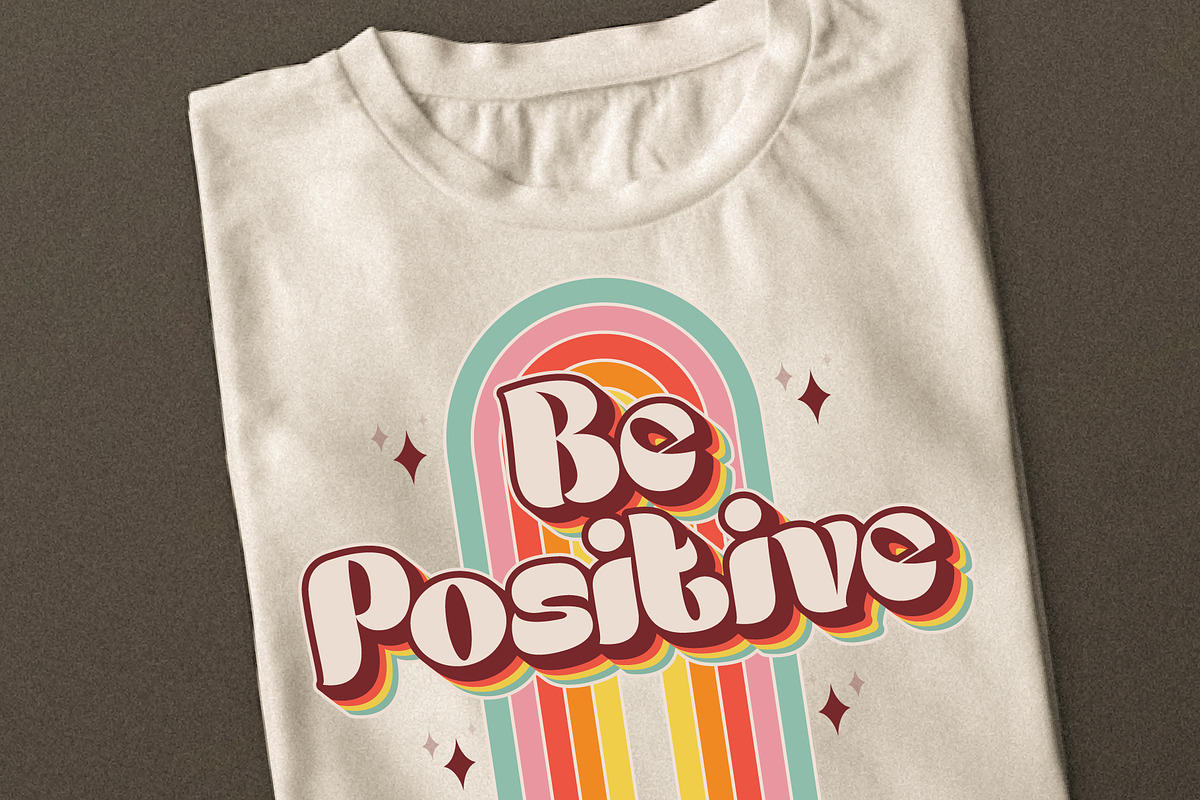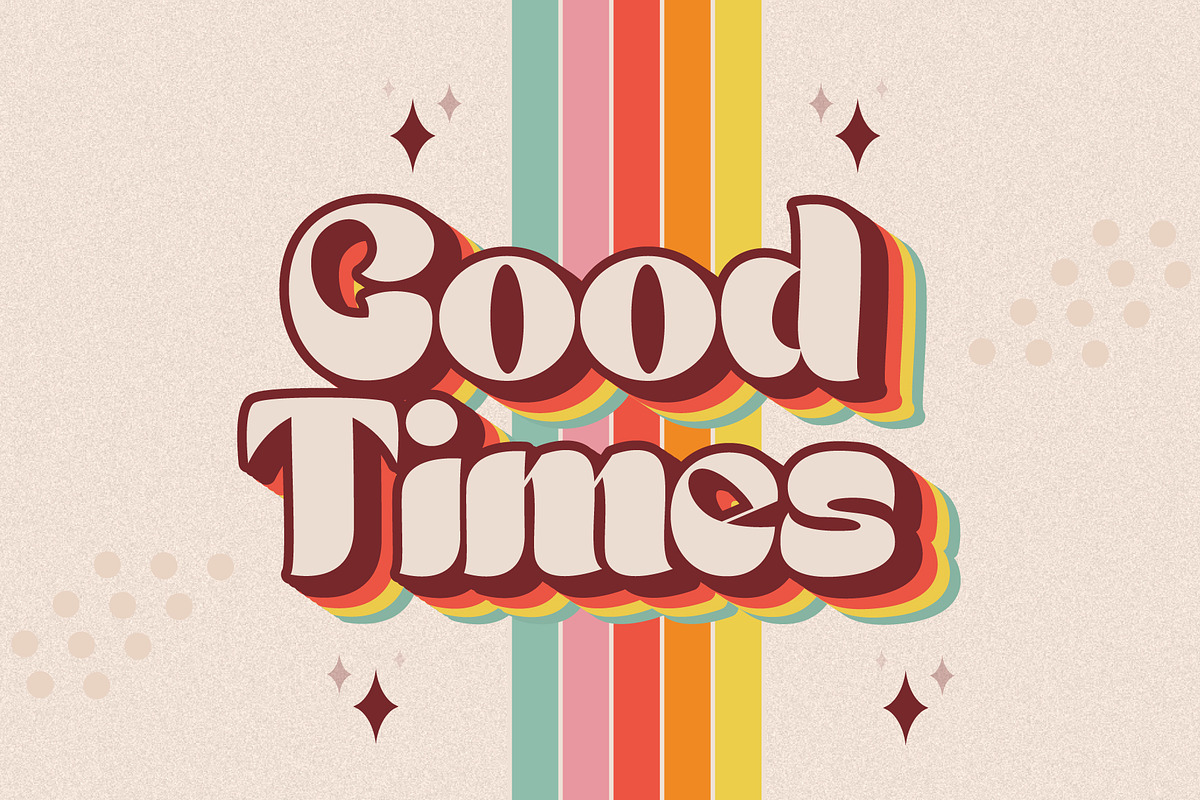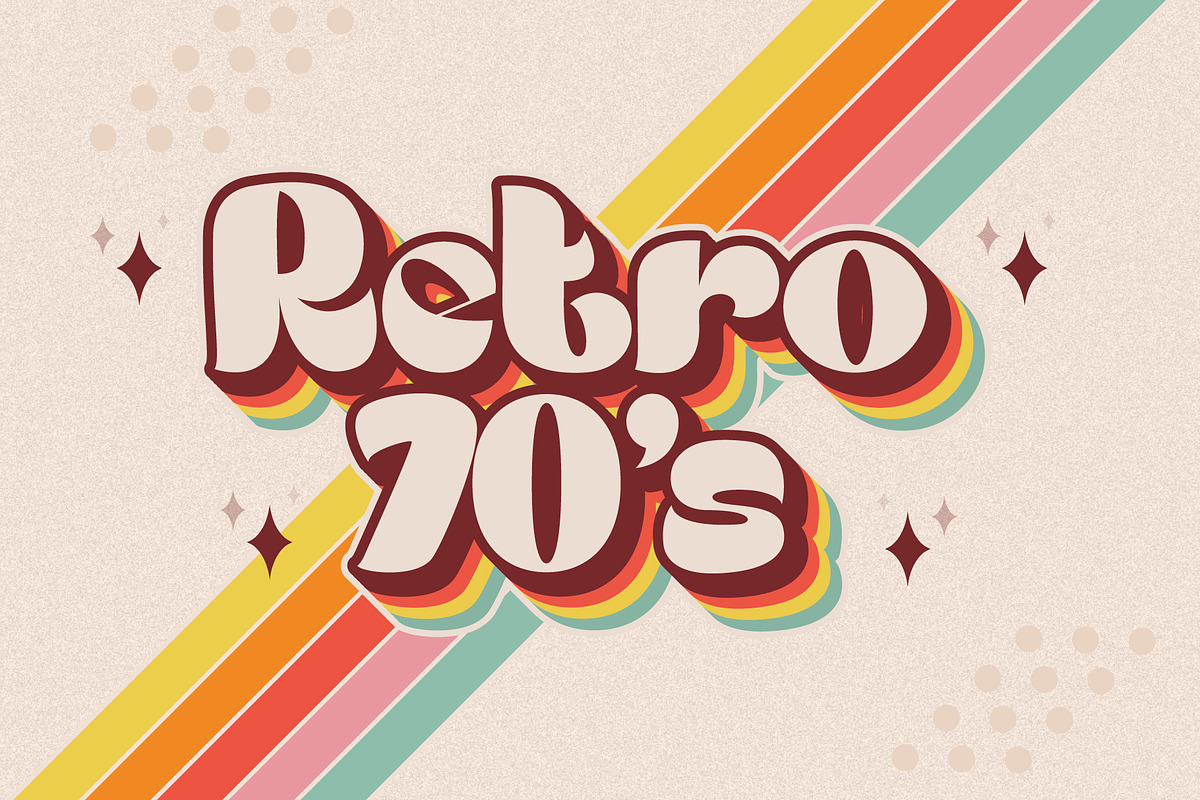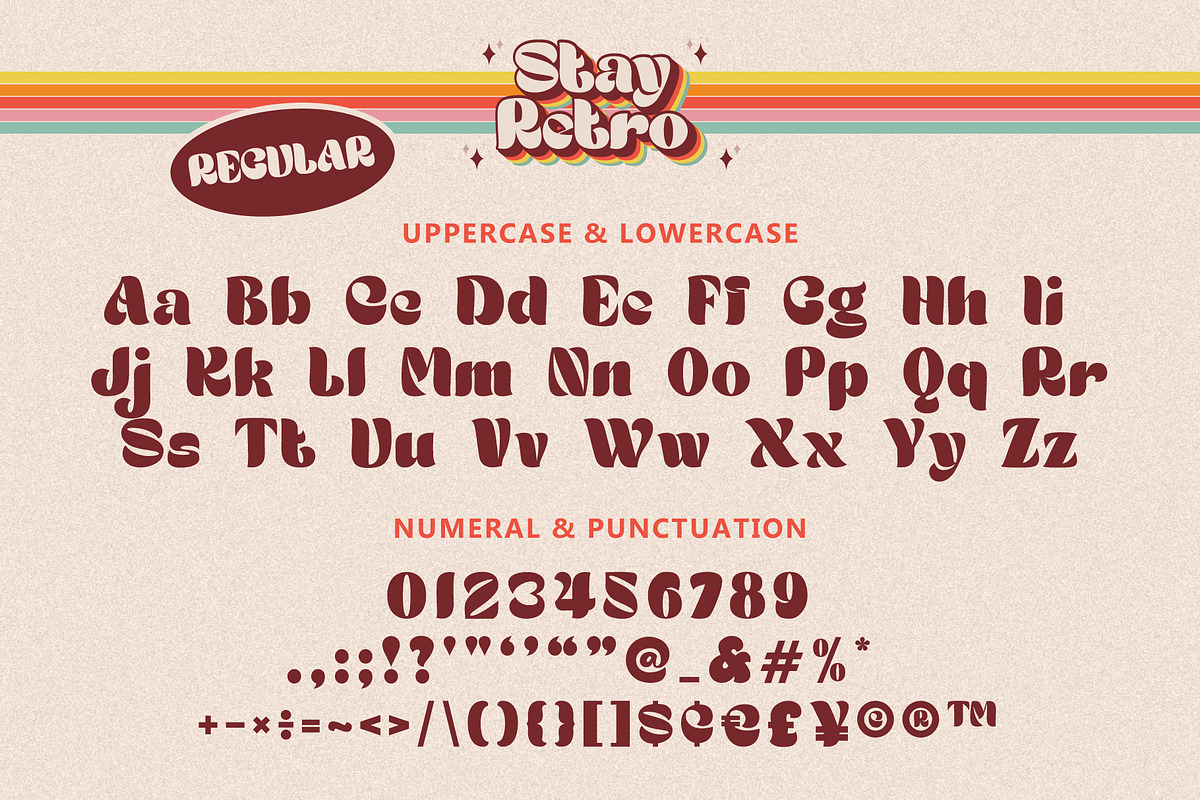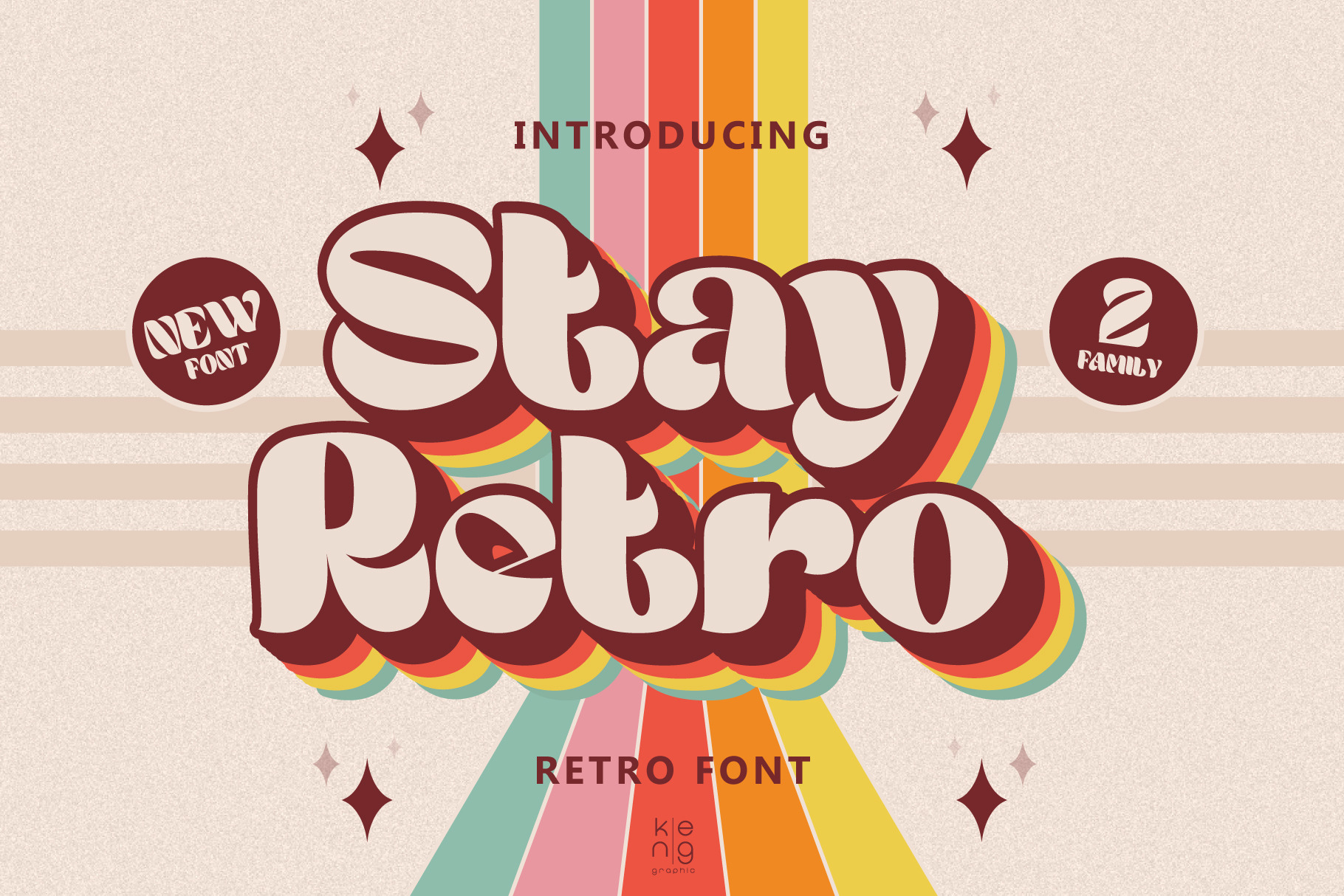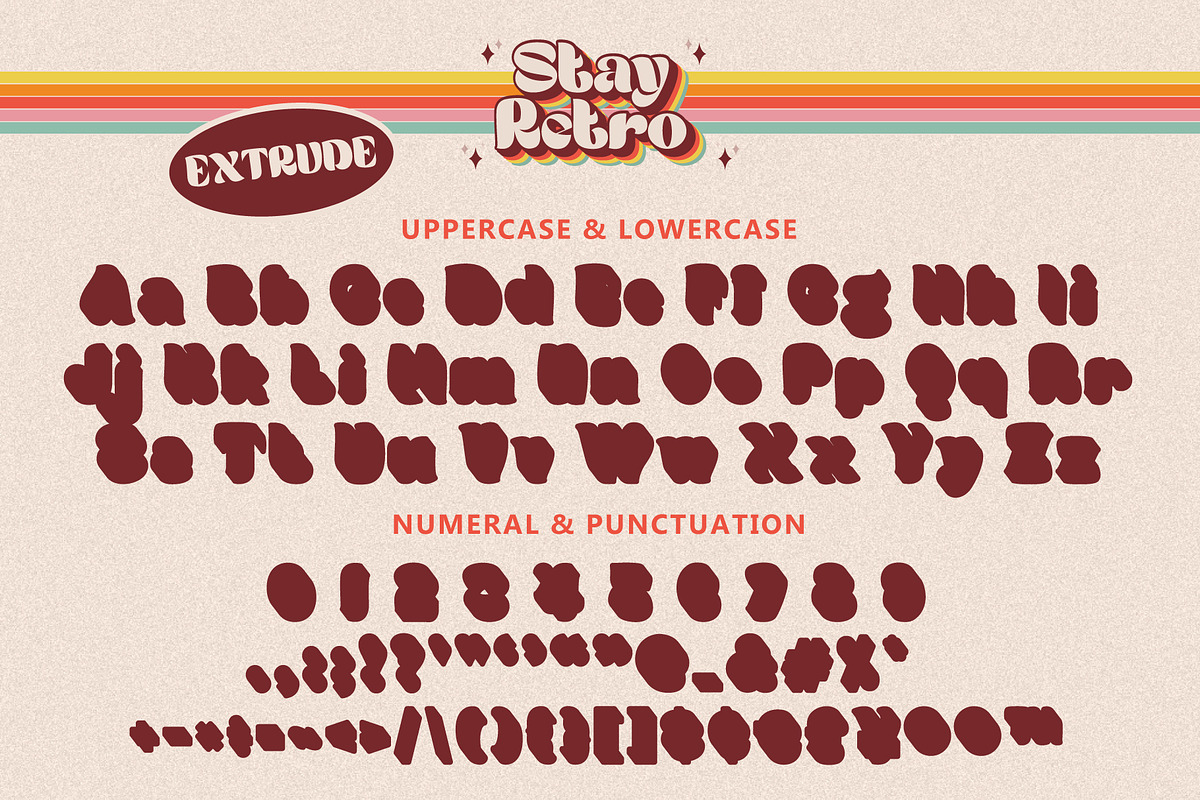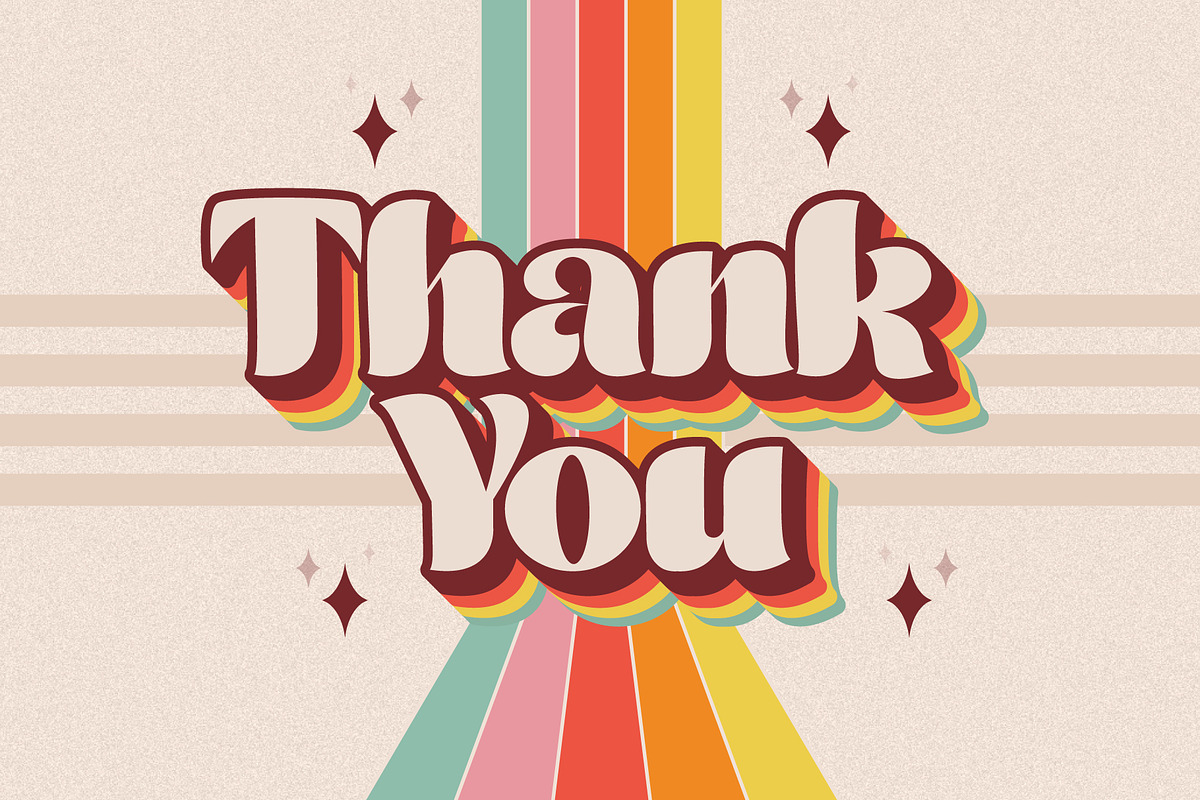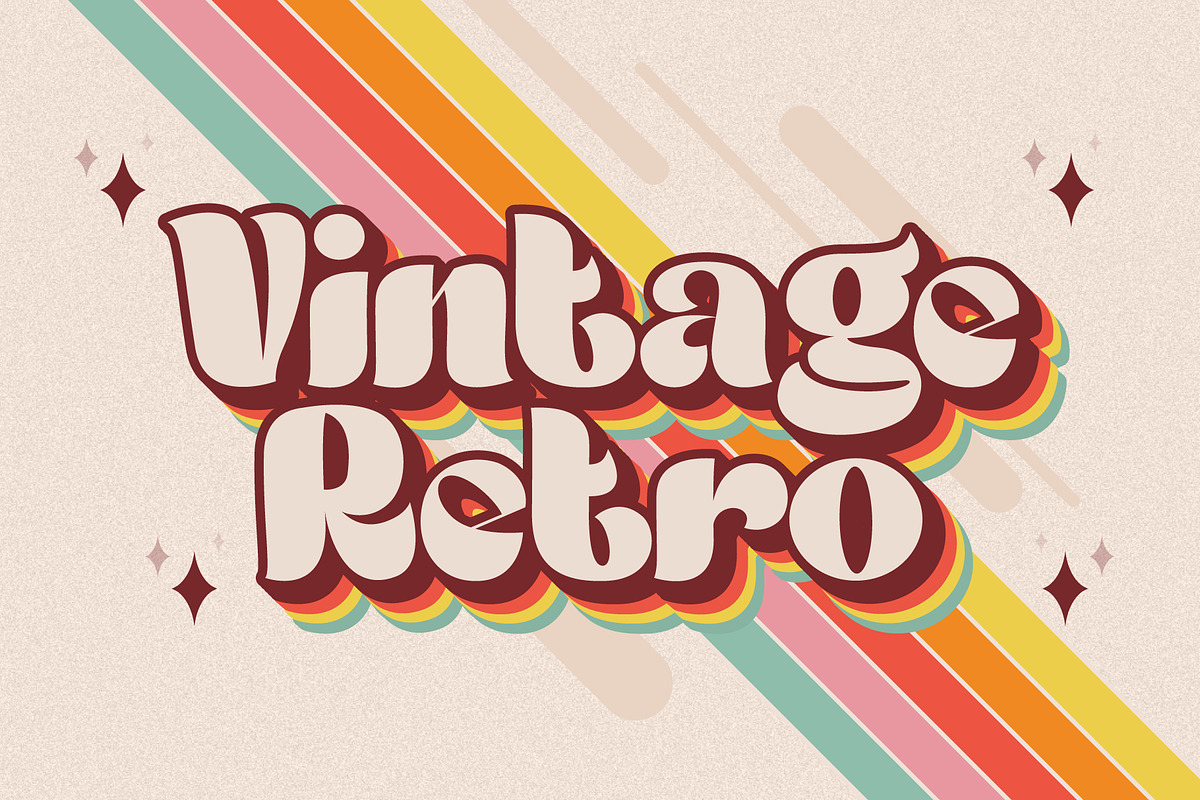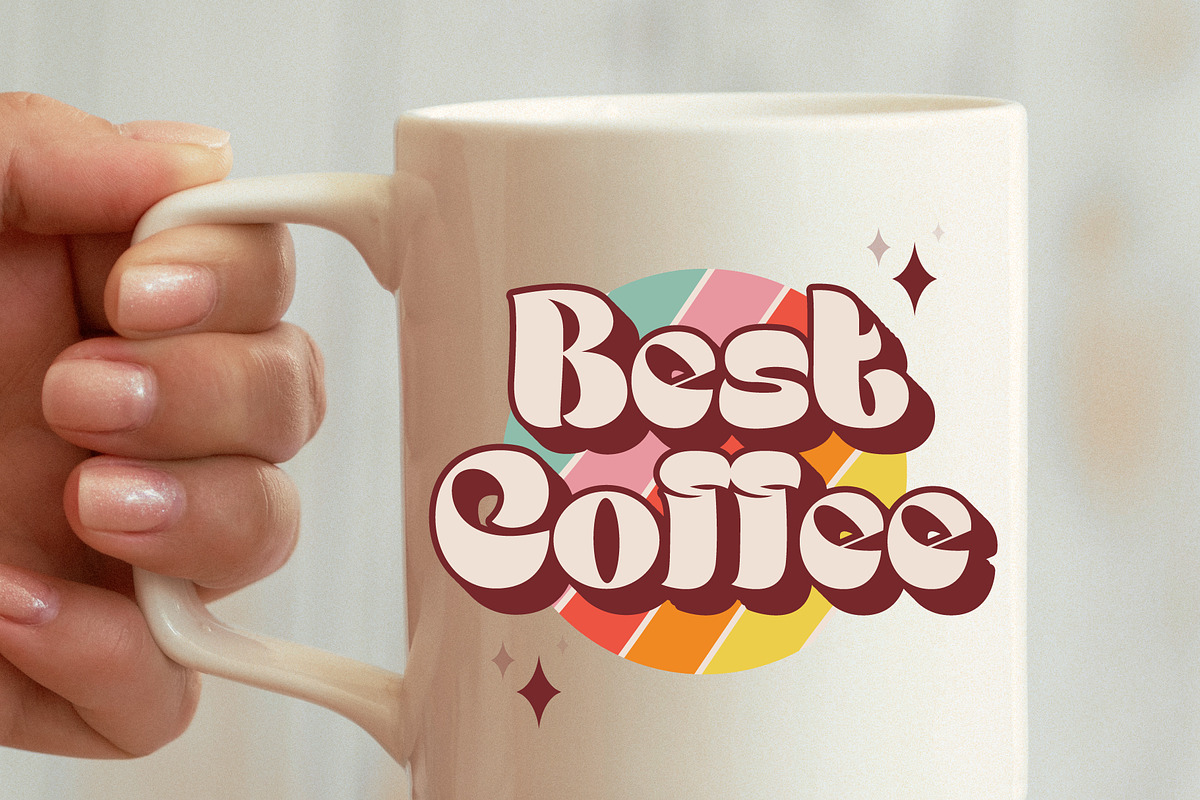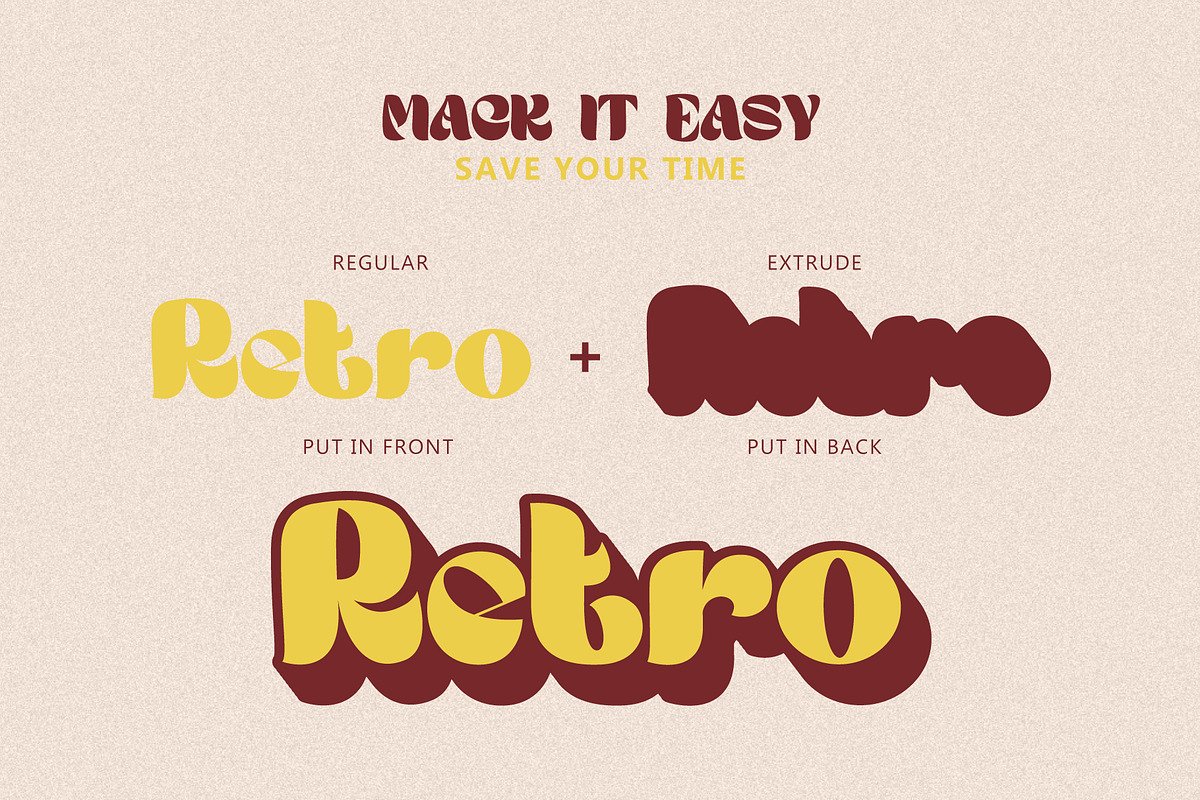
Stay Retro font
Stay Retro is a vintage-style retro font. Inspired by the retro typography and typography of the 60s 70s and 80s, anything written in this font is instantly recognizable and will grab attention. It has a unique shape where every corner is softer and more rounded. Use this display font to add a special retro touch to any design idea you can think of.